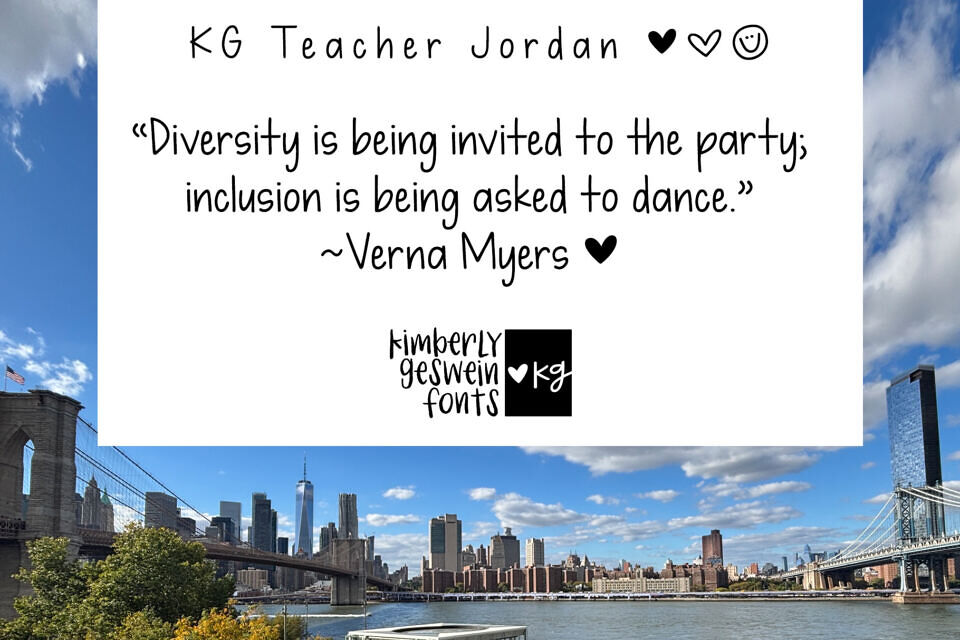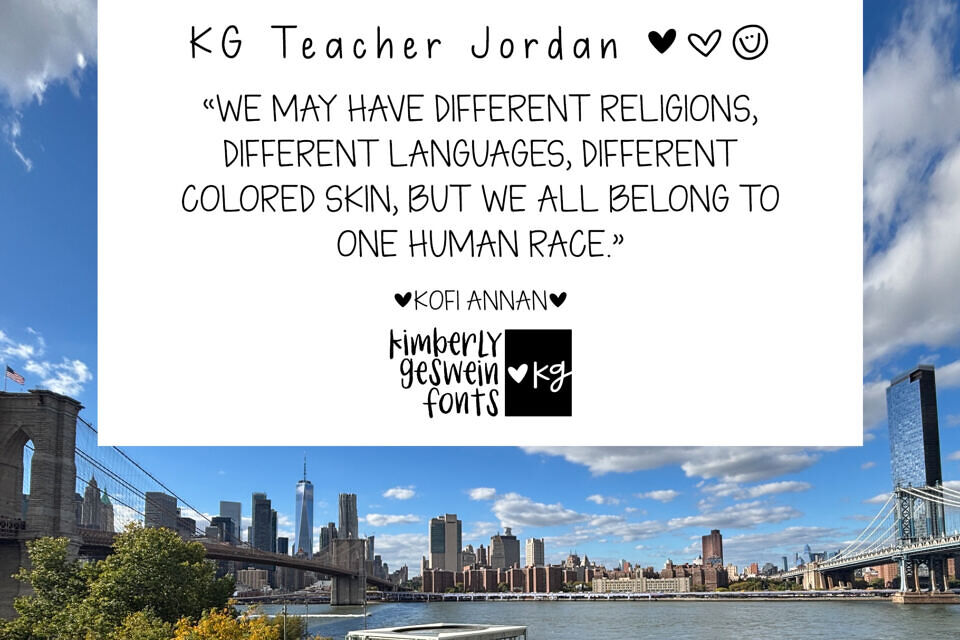
Introducing KG Teacher Jordan, a font designed with teachers in mind. This handwriting-style font features neat letters and adorable extras hidden in special keys, making it easy to add a personal touch to your work.
You’ll love the neat letters and the super cute extras tucked in the vertical bar key, backslash, and circumflex | \ ^ for easy pasting!